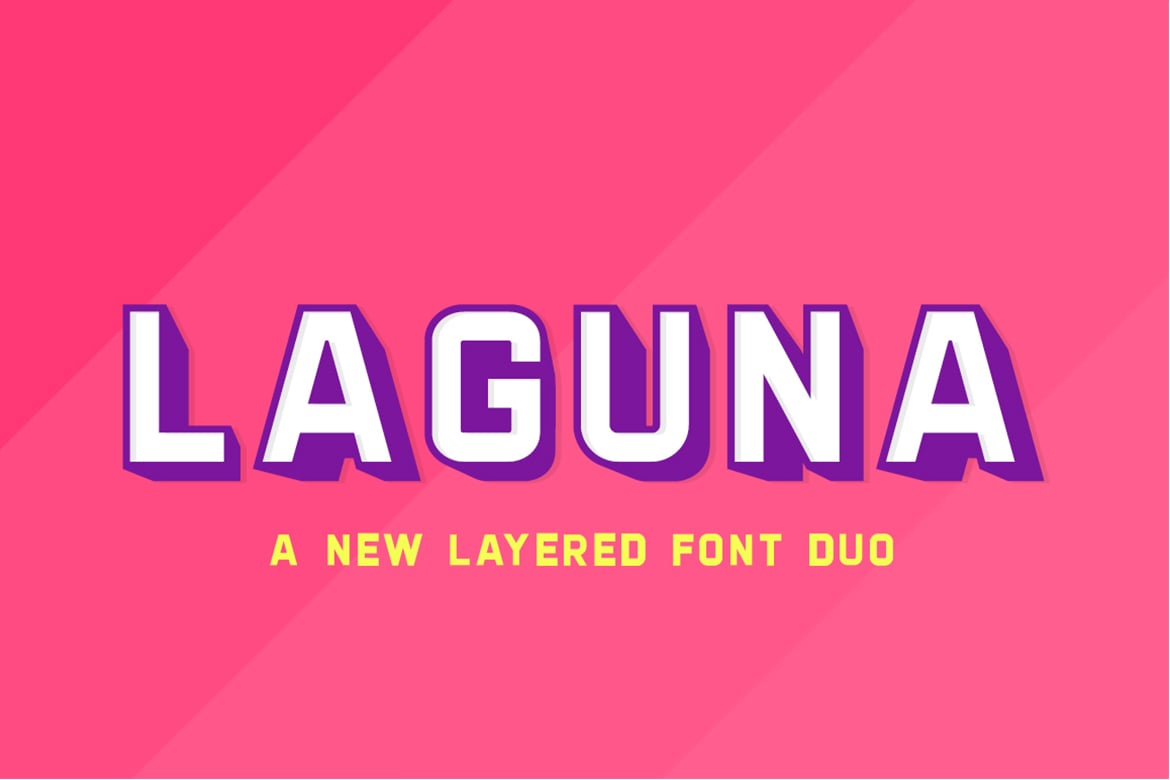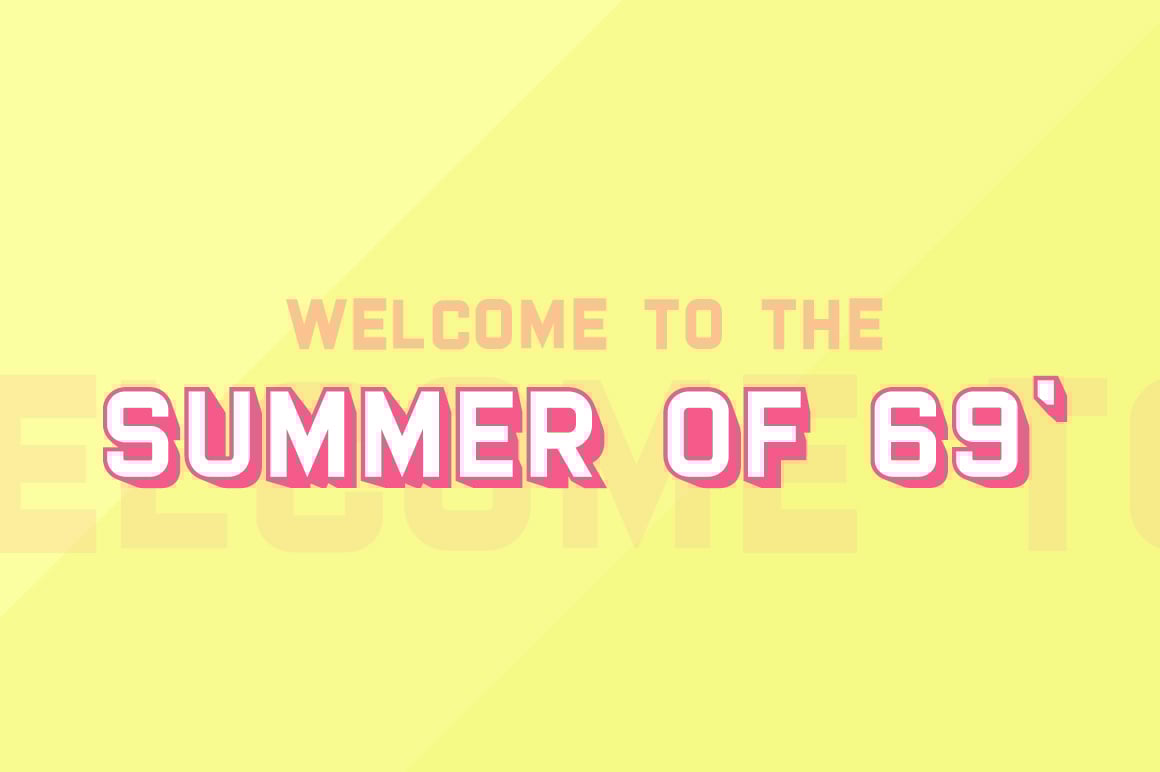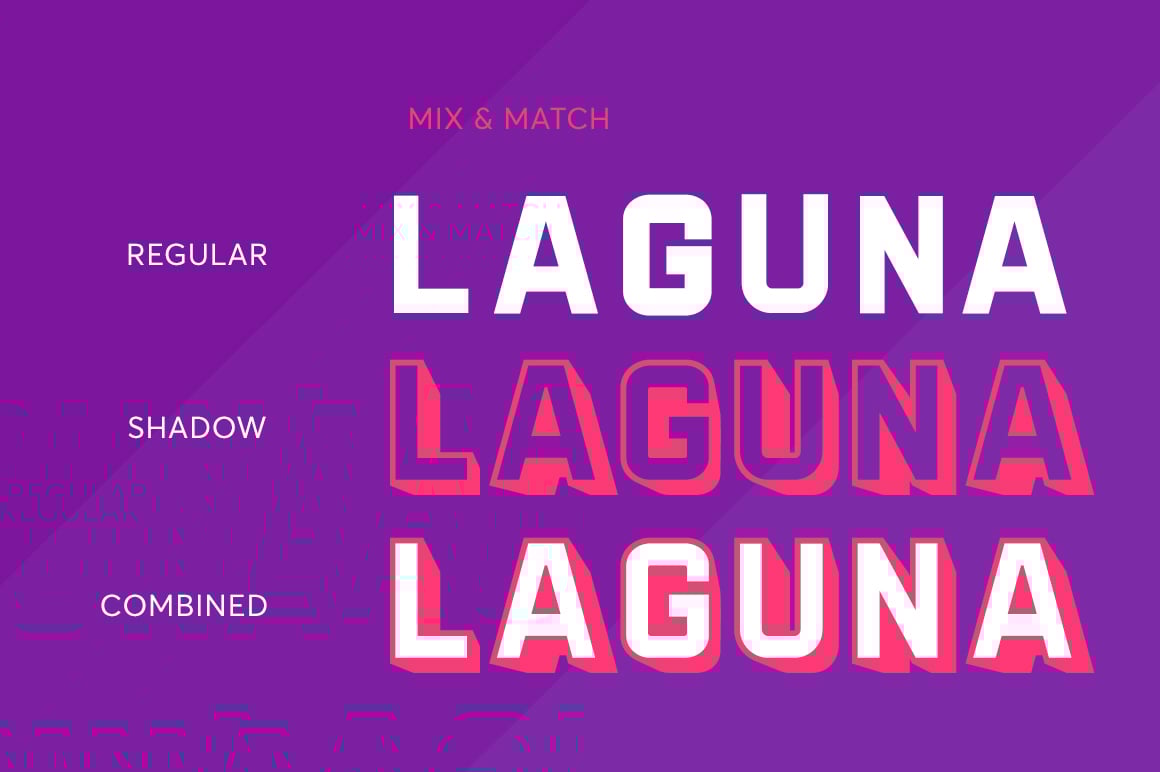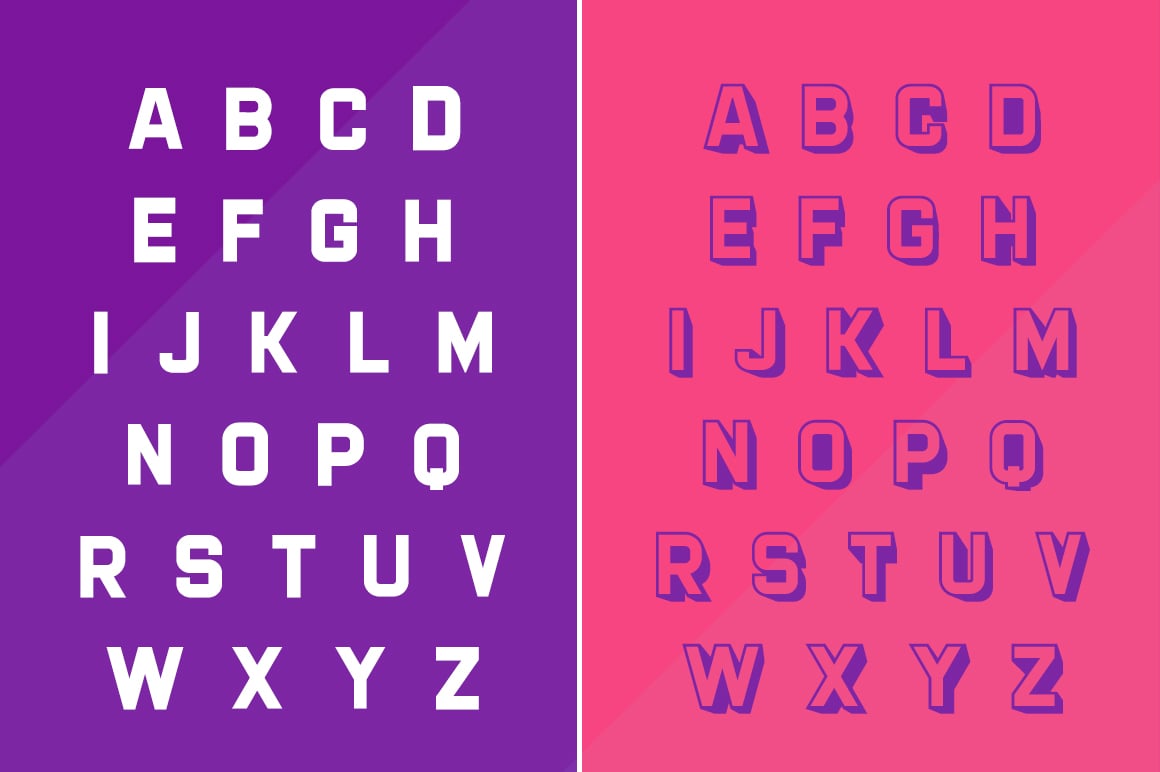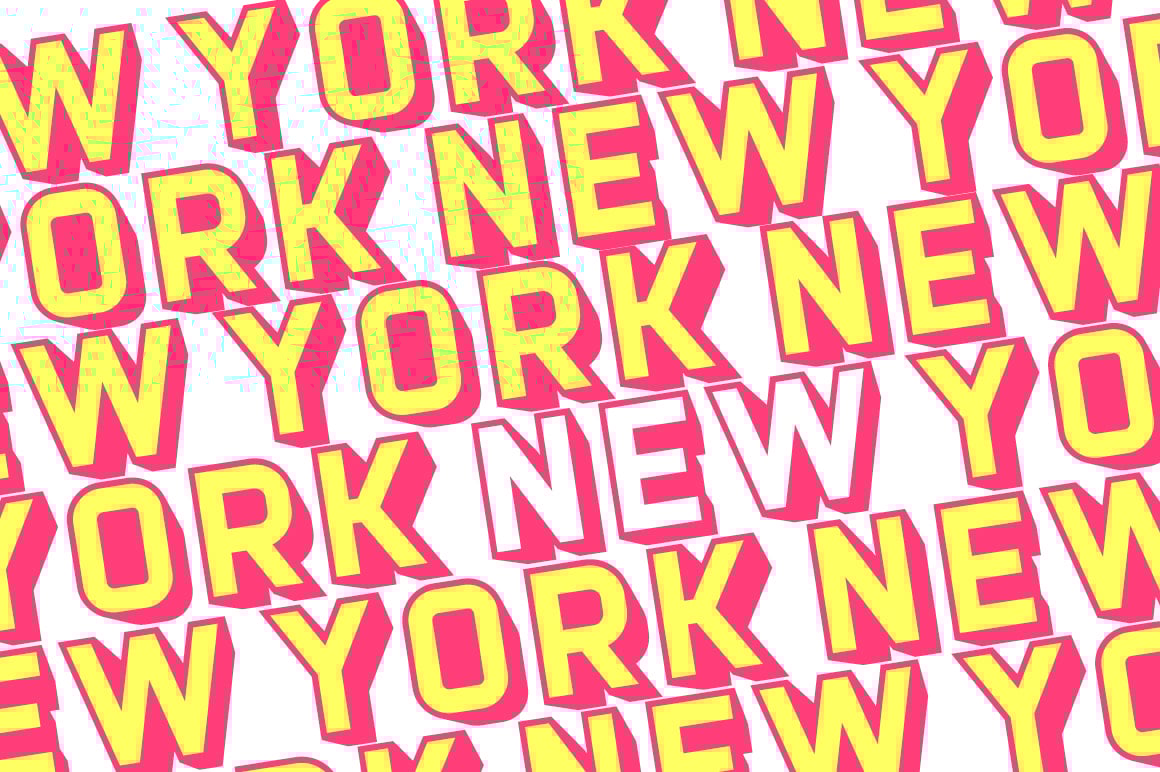
Laguna Layered Font Duo
Laguna is a gorgeous new font duo that packs a punch! Perfect for standing out from the crowd! The regular font can be used alone or paired with its ‘shadow’ version. Contrasting colors can also help this font really pop so mess around with some themes and enjoy!